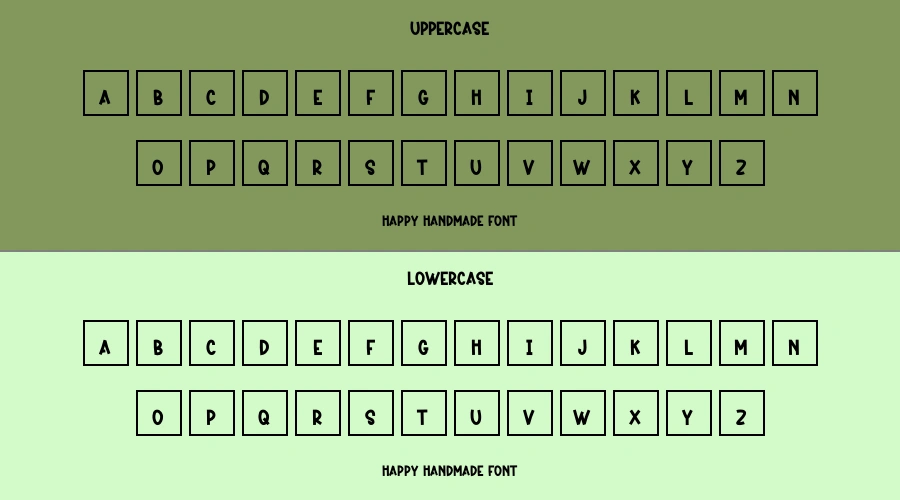
About Happy Handmade Font
Designed with precision, Happy Handmade Font merges expressive energy with adaptability in every character. This versatility makes it particularly effective for packaging hero, where adaptability and professional finish directly impact communication quality. Each letterform demonstrates meticulous craftsmanship.
Technical excellence shines through elements like consistent strokes and kerning pairs, enhancing typographic versatility. In brand logos settings, Happy Handmade Font proves its worth through superior cross-platform compatibility. The thoughtful execution of terminal style and creative expression ensures professional results.